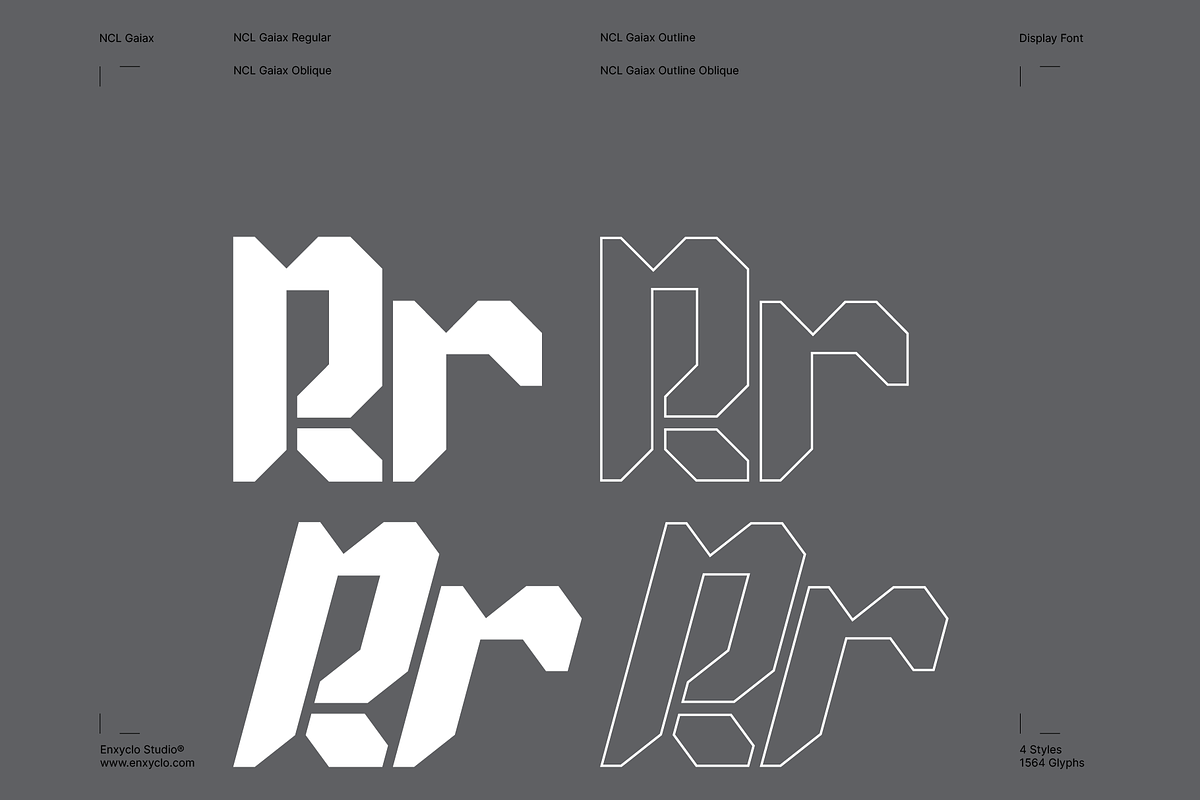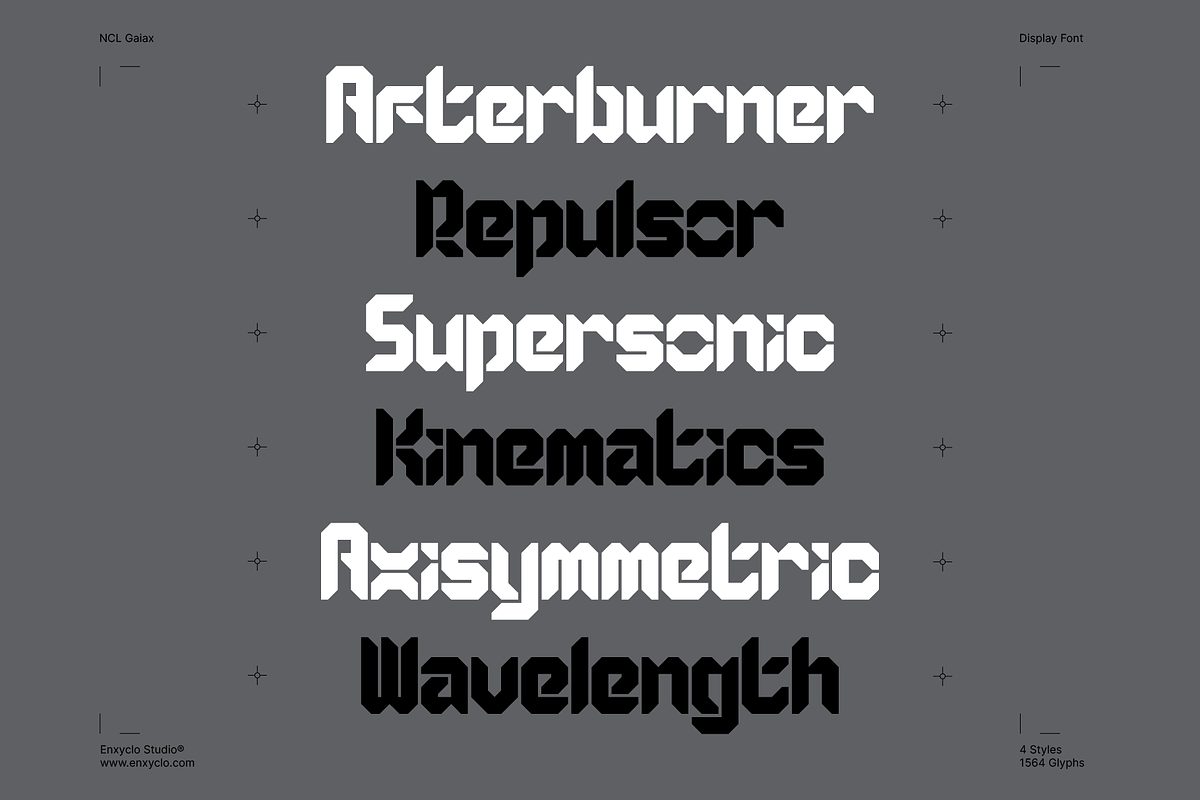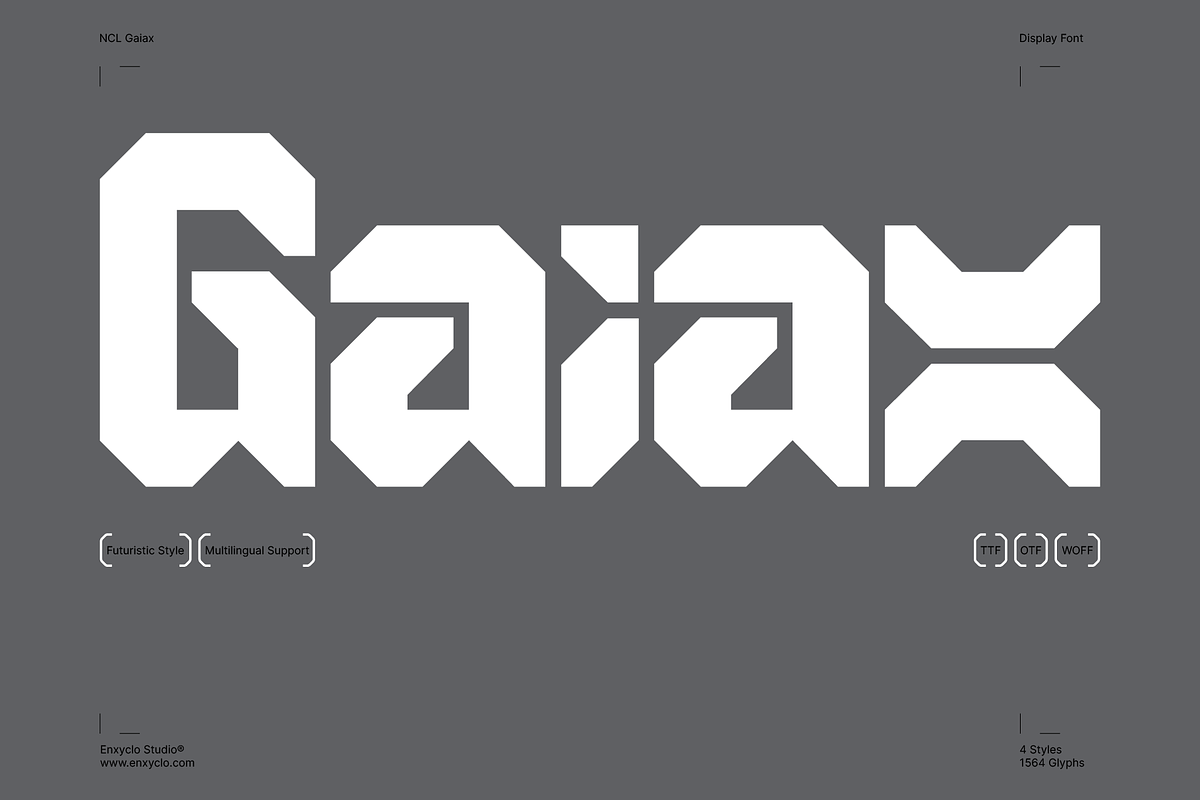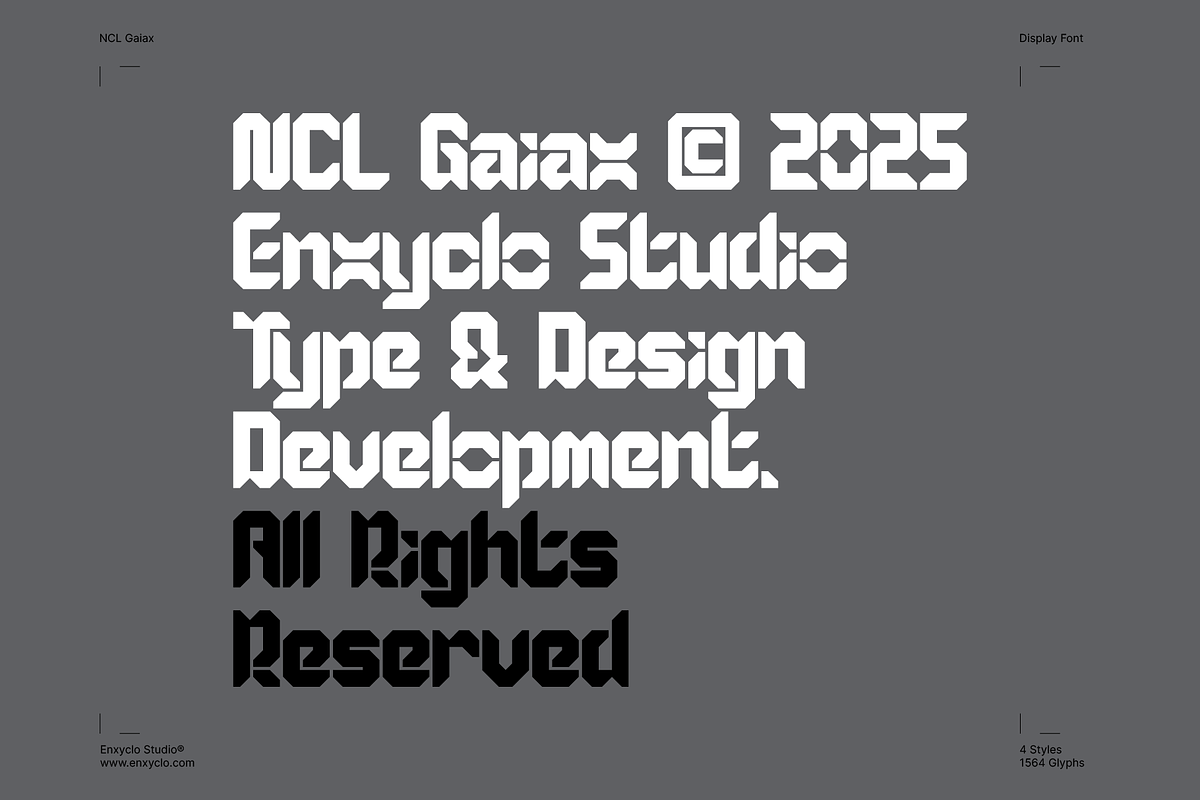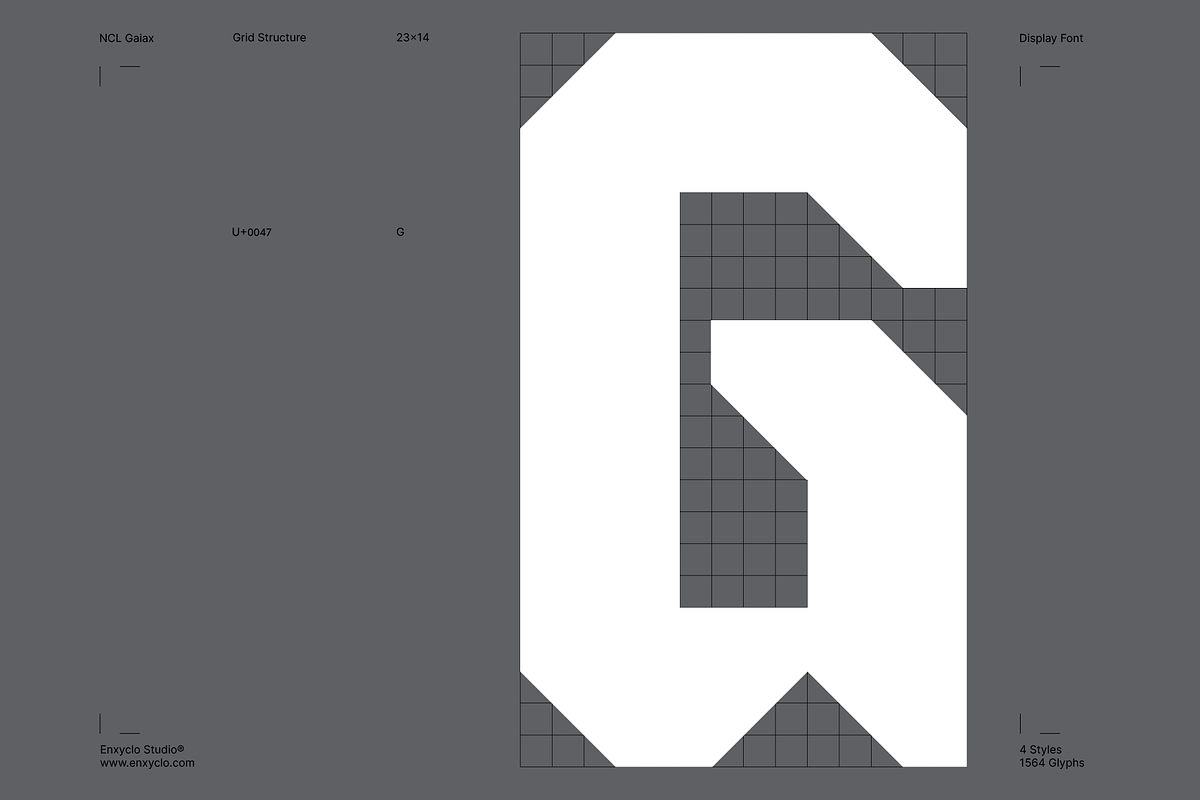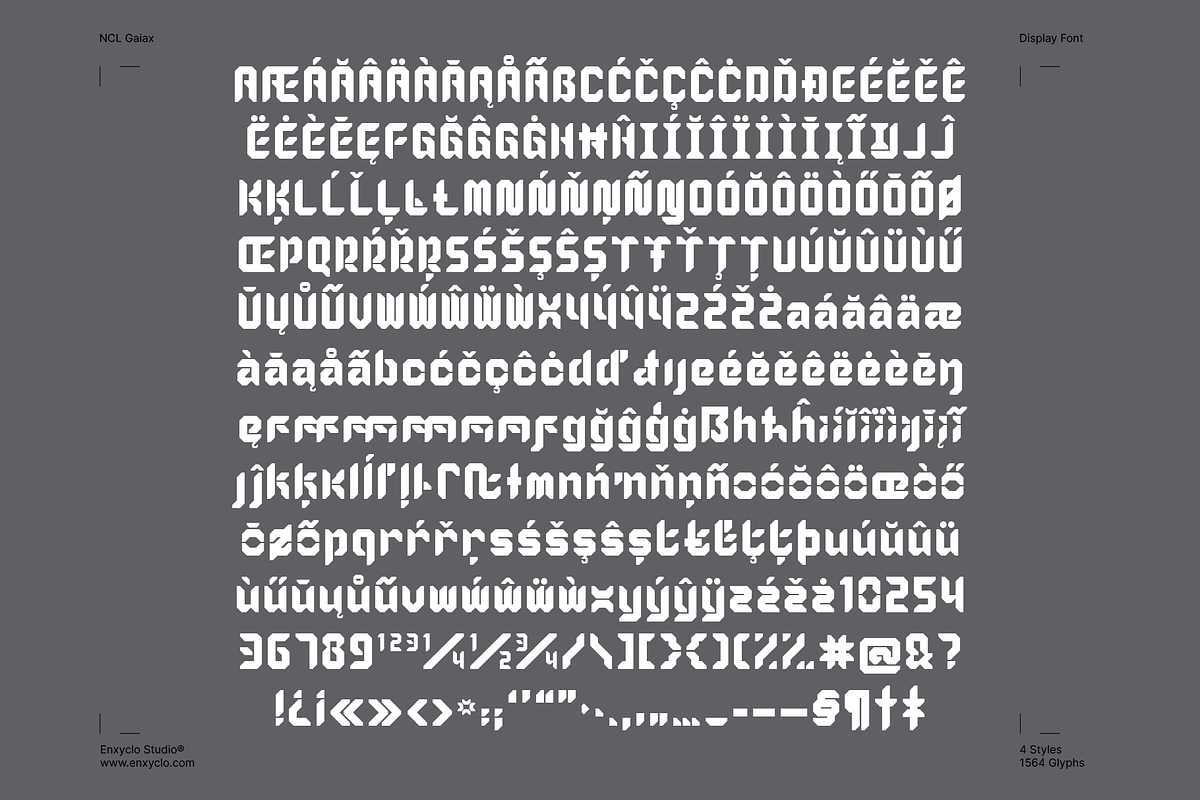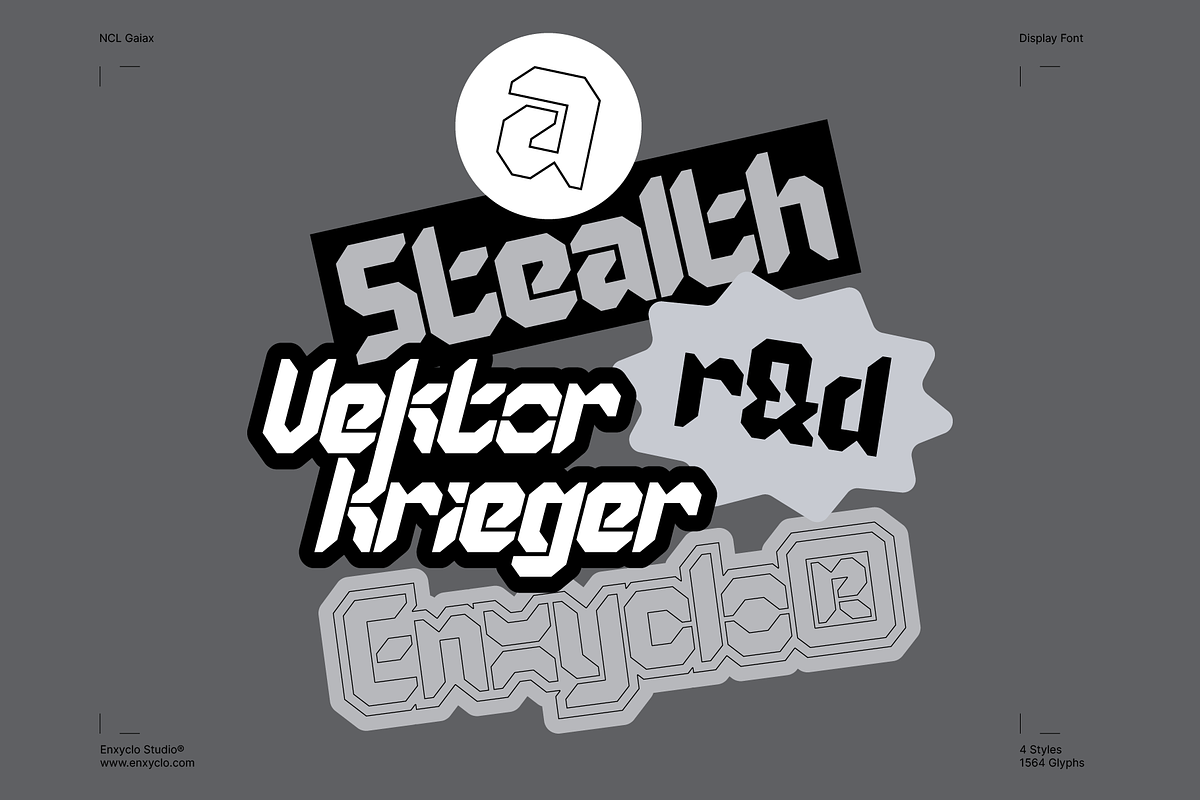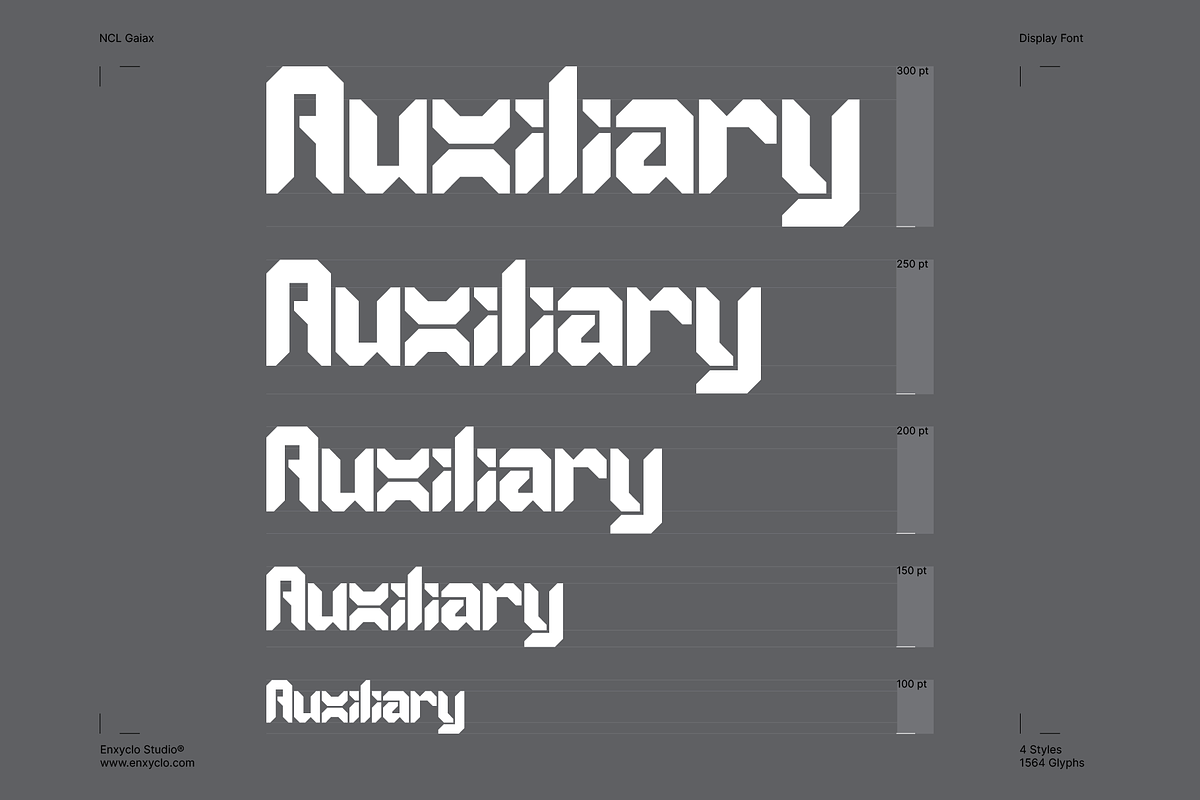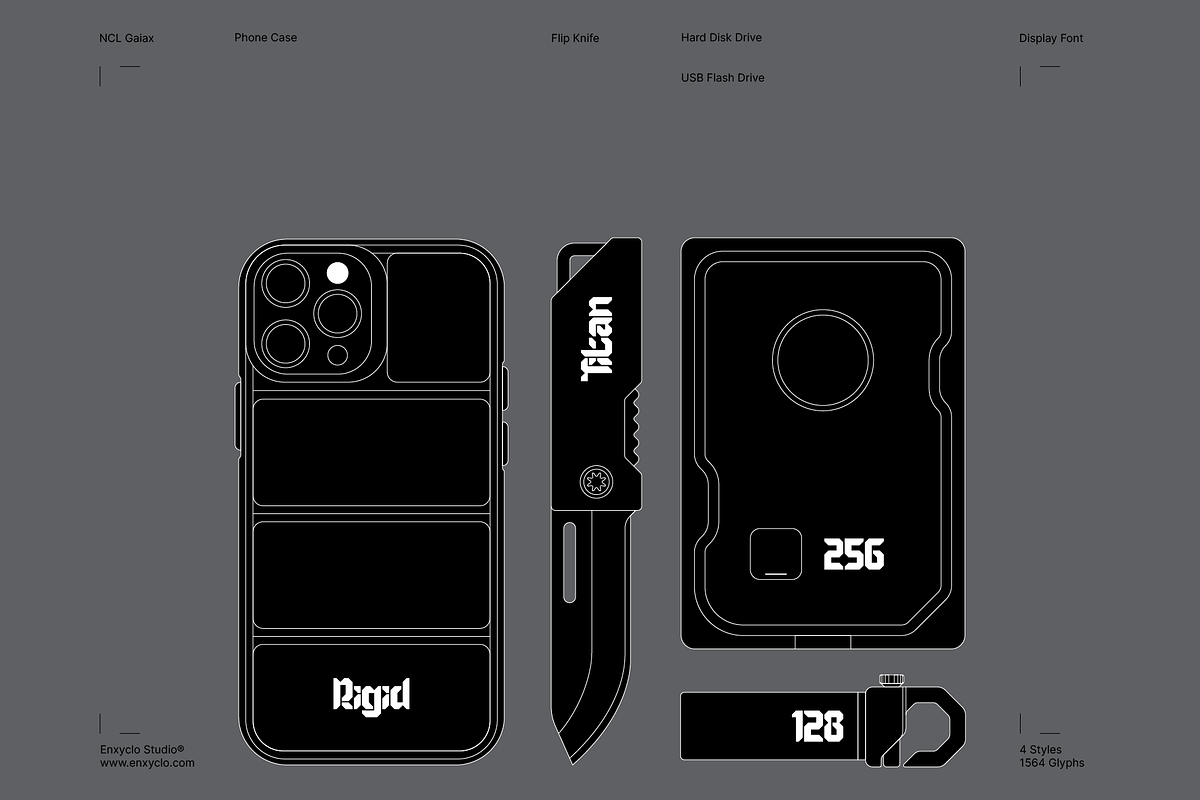
Gaiax - Futuristic Font
Gaiax Font Family is a cutting-edge fusion of Y2K aesthetics, cyberpunk energy, and mecha-industrial precision. Inspired by futuristic robotics and high-tech machinery, this font slices through the noise with its bold, sharp, and dynamic letterforms. Whether you’re crafting a tech brand identity, esports logo, sci-fi movie title, or streetwear design, this font delivers an electrifying edge that commands attention.
Why Choose Gaiax?
- Futuristic Industrial Aesthetic – A sleek, high-tech look inspired by mecha and cyberpunk culture.
- Bold & Angular Design – Thick, aggressive letterforms ensure maximum visual impact.
- Highly Functional & Legible – Designed for both digital and print, from UI/UX to posters and branding.
- Versatile & Multi-Purpose – Ideal for logos, gaming graphics, tech branding, album covers, and more.
- Multi-Language Support – Includes an extensive character set to suit global audiences.
- Gaming & Esports – Give your team an unstoppable futuristic identity.
- Tech & Sci-Fi Branding – The perfect typeface for AI-driven projects, startups, and futuristic concepts.
- Movie Titles & Posters – Add a cinematic, high-energy feel to your designs.
- Streetwear & Apparel – Make bold statements in fashion and merchandise.
This isn’t just a font—it’s a statement of power and innovation. Elevate your design game and make your work stand out in the world of high-tech futurism!
- Gaiax Font Family:
- Gaiax Regular
- Gaiax Outline
- Gaiax Oblique
- Gaiax Oblique Outline
- Contains 392 Glyphs for Each Style
- Numeral, Punctuation & Symbols